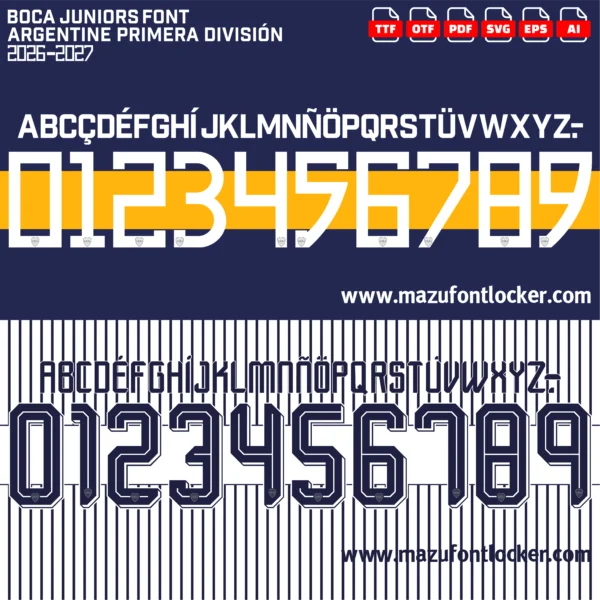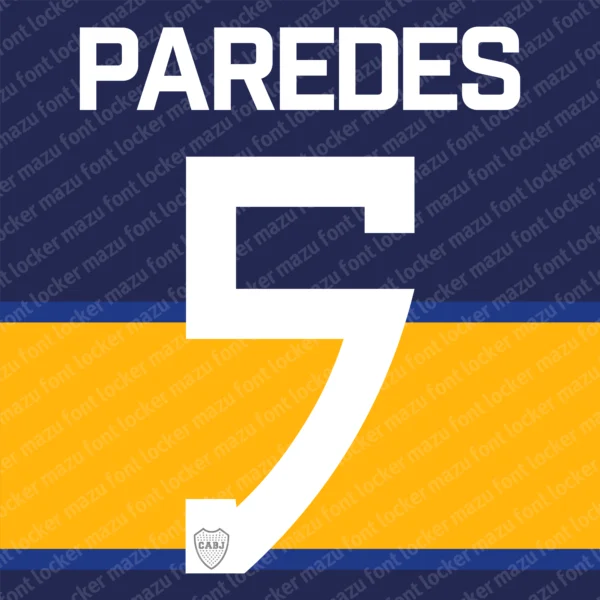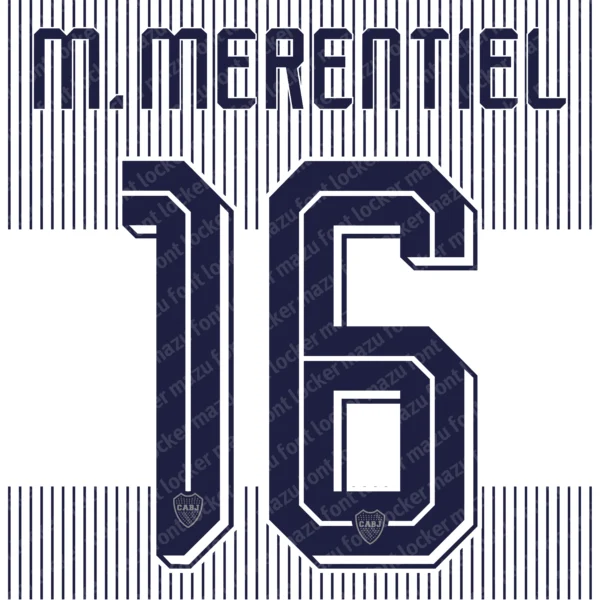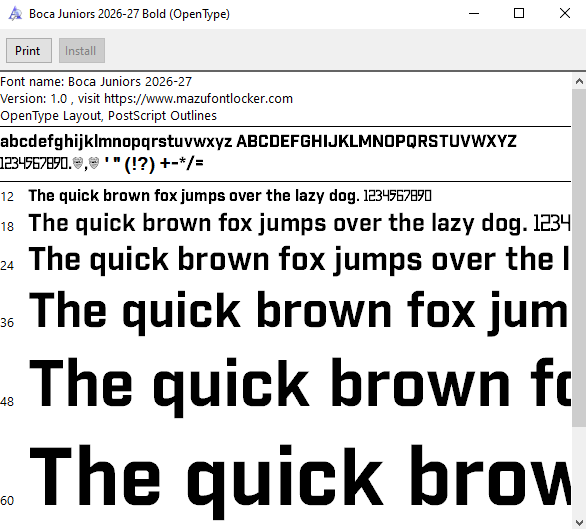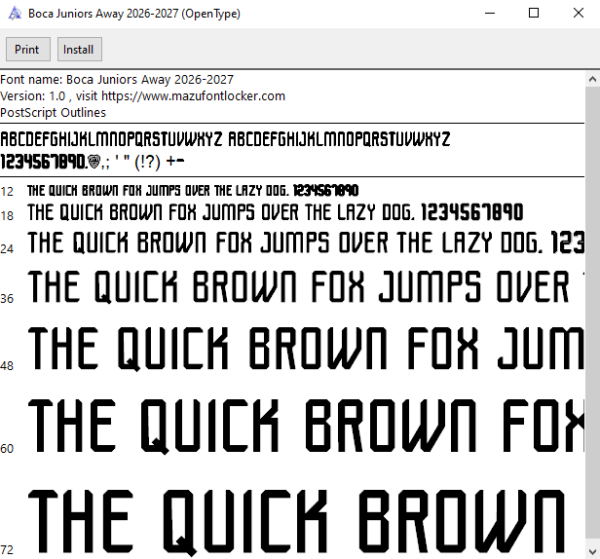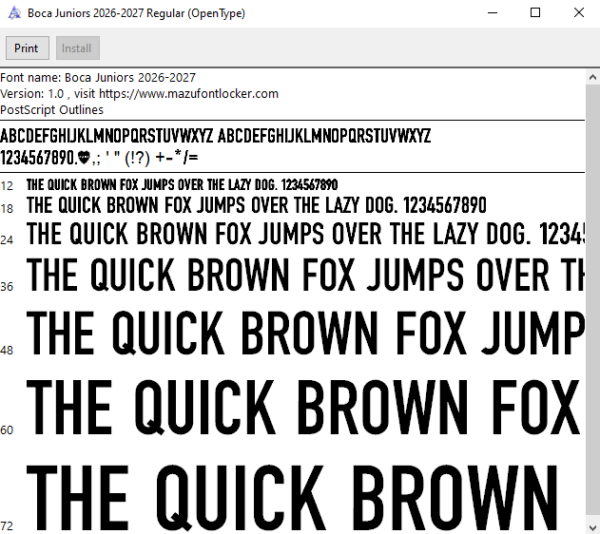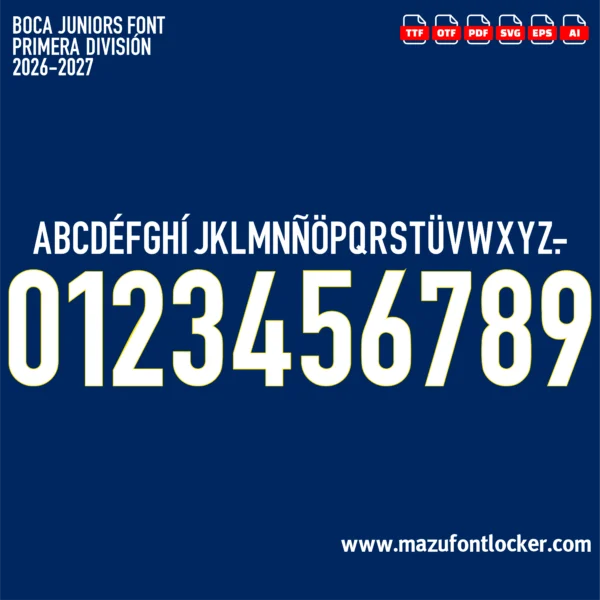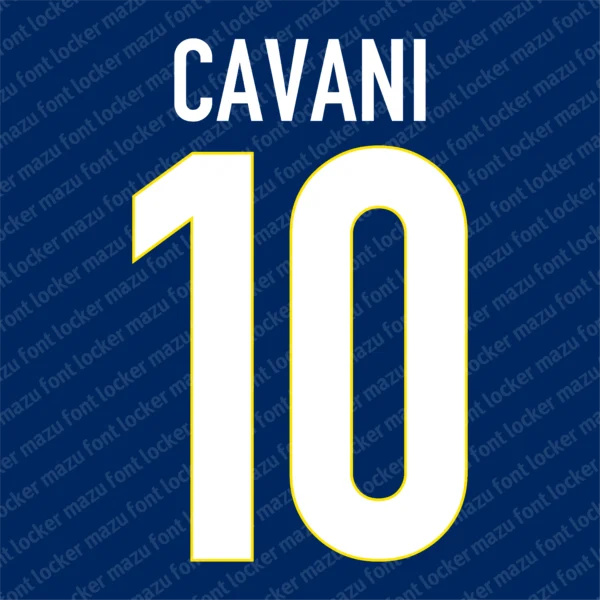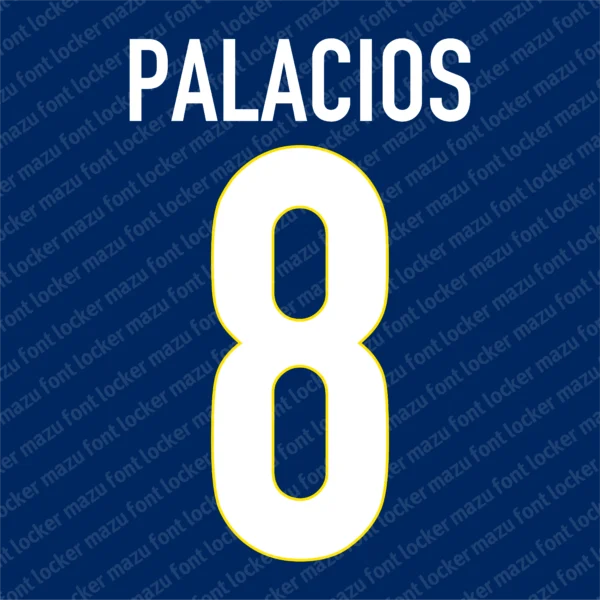
Boca Juniors 2026-2027 Font Vector – Epic La Bombonera Masterpiece
Boca Juniors 2026-2027 Font Vector – Authentic Boca Juniors Typeface
The Boca Juniors 2026-2027 Font Vector is a premium typeface that accurately recreates the official match lettering worn by Boca Juniors during the 2026-2027 Argentine Primera División and international campaigns. This high-quality vector font kit captures the bold, passionate, and iconic typography that represents the pride, tradition, and fighting spirit of the Xeneizes.
Designed for professional designers and passionate Boca fans, the Boca Juniors 2026-2027 Font Vector delivers perfect authenticity for creating realistic jersey mockups, fan merchandise, matchday posters, social media graphics, and Argentine football content. It pairs beautifully with the iconic home kit featuring the famous blue and gold colors.
Why Choose Boca Juniors 2026-2027 Font Vector
This font stands out because of its sharp vector precision and strong club identity. Every letter and number is crafted to match the exact style used on the players’ shirts during the 2026-2027 season. Whether you are making realistic kit templates or exciting Boca content, the Boca Juniors 2026-2027 Font Vector gives your designs that authentic La Boca look.
The letterforms in the Boca Juniors 2026-2027 Font Vector are tall, bold, and highly readable. The strokes have a strong, clean weight with excellent edge definition that looks powerful on the back of jerseys while maintaining classic Argentine heritage and modern strength.
- Full uppercase A–Z and numbers 0–9 in authentic Boca Juniors 2026-2027 style
- Special Boca crest glyph – Press the “:” (colon) symbol to insert the Boca Juniors logo
- Multilingual Latin character support including diacritics
- Create highly realistic Boca Juniors 2026-2027 home and away jersey mockups with accurate lettering
- Design stunning match posters, score graphics, and squad announcements
- Produce custom Boca merchandise with the 2026-2027 aesthetic
- Includes the exact crest glyph placement used under player numbers
Boca Juniors 2026-2027 Campaign
The 2026-2027 season marked another ambitious campaign for Boca Juniors in the Primera División and Copa Libertadores. The Xeneizes delivered competitive performances, showcasing their trademark passion, tactical discipline, and attacking flair. The team created unforgettable moments that united fans across La Boca and the global Boca community.
Star players and rising talents combined to produce memorable nights. The campaign further cemented Boca Juniors’ status as a proud and historic club in Argentine and South American football.
The Boca Juniors 2026-2027 Font Vector is an independently designed typeface package. It is carefully crafted to replicate the official shirt lettering style of the 2026-2027 season. This font kit is perfect for creative projects, fan edits, nostalgic jersey designs, and custom football graphics.